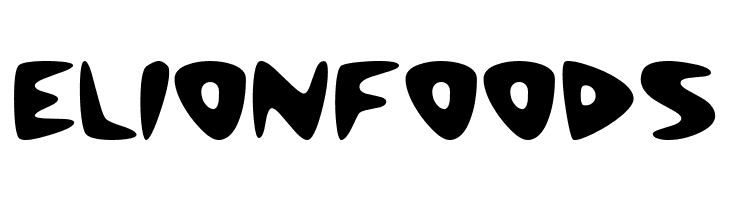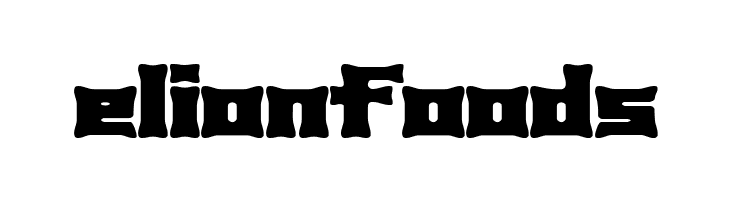
A decorative serif font with elegant, flowing uppercase and classic lowercase letters.
( Fonts by Alan Carr )
A playful, bold font with rounded, bubble-like characters.
A bold, playful font with rounded edges and a retro feel.
( Fonts by Alan Carr )
A vintage, distressed font with an antique, hand-crafted appearance.